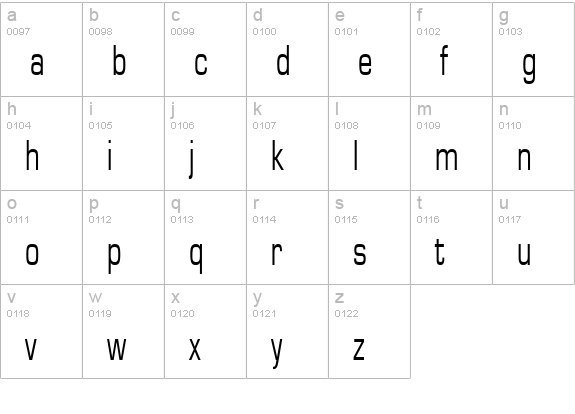
Eurasia Thin Normal is a delicate, low-contrast variant in the Eurasia typeface family \xE2\x80\x94 well suited to fashion editorial, minimal branding, and high-contrast display.
Eurasia Thin Normal font is a sleek and elegant typeface that exudes sophistication and modernity. With its delicate lines and balanced proportions, this font is perfect for creating a clean and refined look in your designs. Whether you're working on branding, editorial projects, or web design, Eurasia Thin Normal font will add a touch of sophistication to your work. Best of all, Eurasia Thin Normal font is available for free download at FontsMarket.com. You can easily access this stylish font and incorporate it into your projects without any cost. Don't miss out on this opportunity to elevate your design work with the timeless beauty of Eurasia Thin Normal font. Download it today and start creating stunning visuals that stand out from the rest.